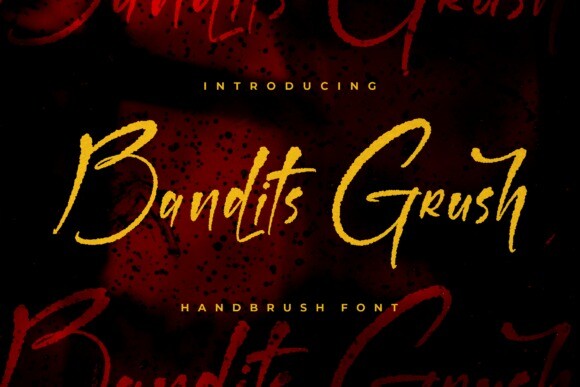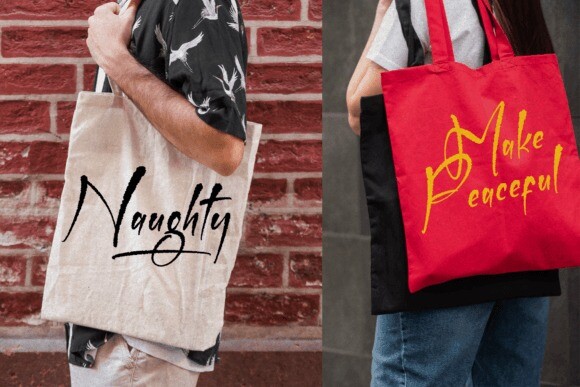
Bandits Grush Font
Bandits Grush Font is a lovely and timeless handwritten font. It is the best choice for creating eye catching logos, branding and quotes. Every letter has a unique and beautiful touch, which will make your design come alive!